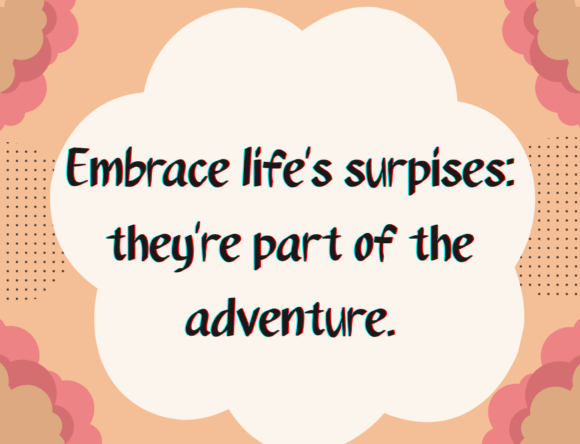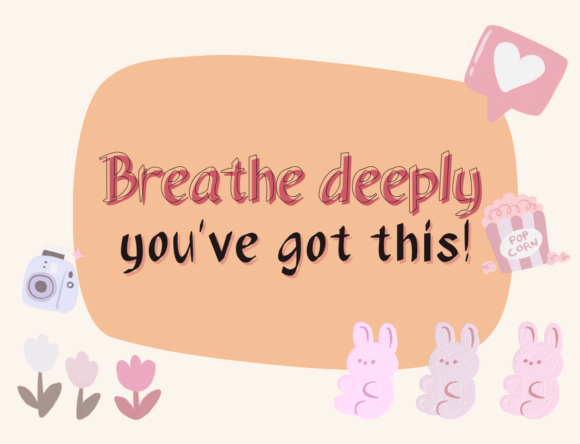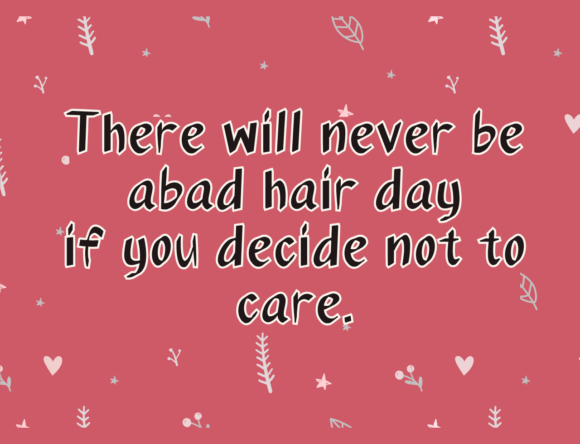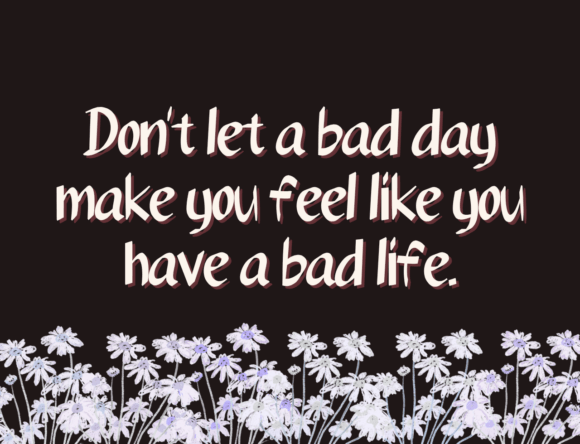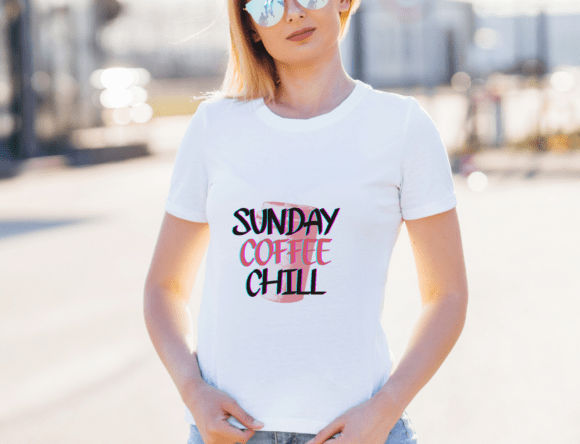
Naturele Font – Free Download
Introduction to Naturele Font
Naturele is a sweet and friendly handwritten font.
Key Features of Naturele Font
Why Choose Naturele Font?